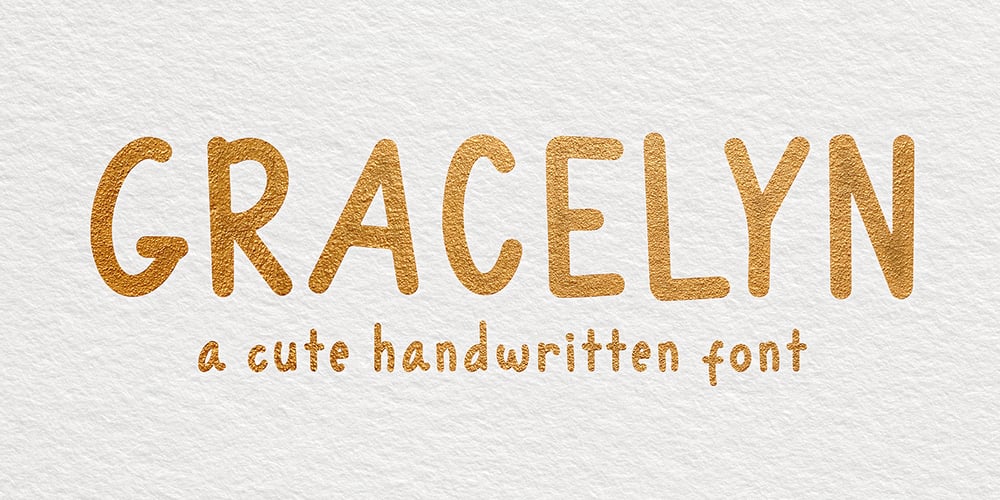
Gracelyn Font Family was designed by Sipanji and published by Sipanji21. Gracelyn contains 1 styles and family package options. Gracelyn is a whimsical script font with a relaxed theme, featuring a lovely style. No matter the topic, this font will be an incredibly asset to your fonts’ library, as it has the potential to elevate any creation.